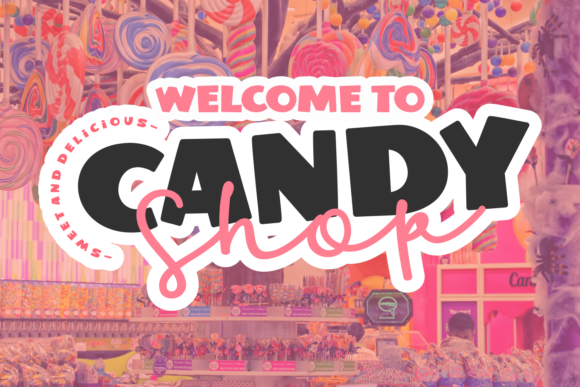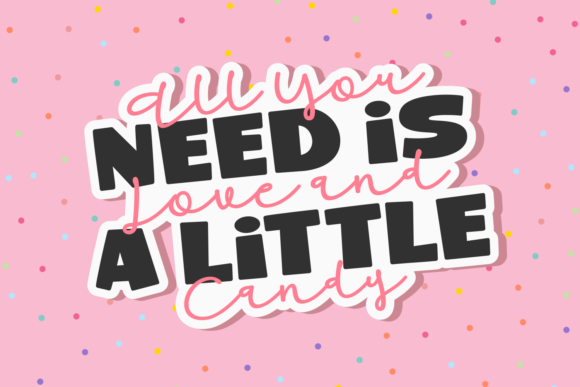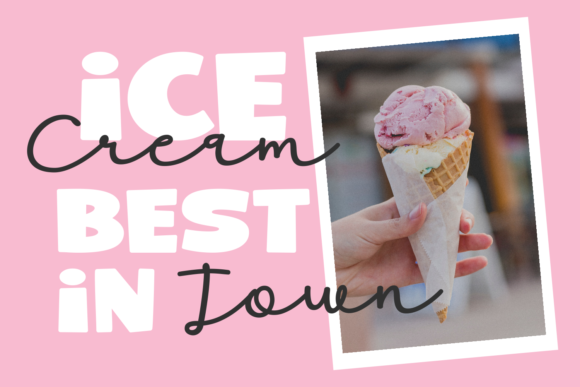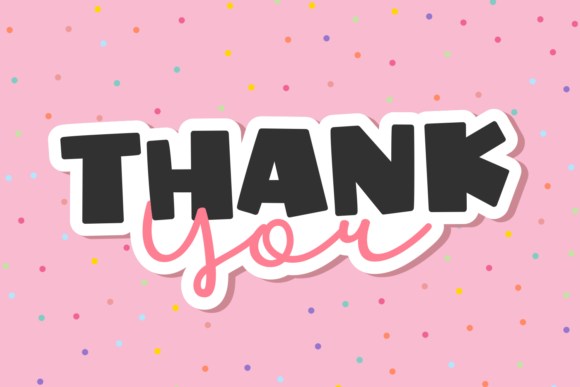
Cute Candy Font: The Sweetest Addition to Your Design Collection
Are you tired of using the same old fonts in your designs? Look no further than the Cute Candy Font, a lovely duo font that is sure to elevate your creative projects to the next level. This versatile font combination includes a sans serif and script font, making it perfect for a wide range of designs, from modern and sleek to playful and whimsical.
The Cute Candy Font Duo: A Match Made in Heaven
The Cute Candy Font is a duo font, consisting of two complementary fonts that work together in perfect harmony. The sans serif font is clean and modern, with a fresh and youthful feel, while the script font adds a touch of elegance and sophistication. Together, they create a unique and eye-catching combination that is sure to make your designs stand out.
One of the best things about the Cute Candy Font is its incredible versatility. Whether you’re designing a logo, creating a social media graphic, or crafting a handmade project, this font duo is sure to fit the bill. Here are just a few ideas to get you started:
- Create a modern and sleek brand identity with the sans serif font, perfect for businesses and entrepreneurs.
- Add a touch of whimsy and playfulness to your designs with the script font, ideal for crafts, DIY projects, and kids’ activities.
- Use the Cute Candy Font duo to create stunning invitations, party decorations, and other celebration materials.
- Pair the font with bright colors and fun graphics to create eye-catching posters, flyers, and brochures.
Bring Your Creative Ideas to Life
Are you looking for a way to add a little extra magic to your designs? The Cute Candy Font is the perfect solution. With its unique and playful combination of sans serif and script fonts, this duo is sure to bring your creative ideas to life. Whether you’re a designer, crafter, or DIY enthusiast, this font is sure to inspire you to create something truly special.
Why Designers and Crafters Love the Cute Candy Font
So, what makes the Cute Candy Font so special? Here are just a few reasons why designers and crafters love this font duo:
- Versatility: The Cute Candy Font duo can be used for a wide range of designs, from modern and sleek to playful and whimsical.
- Unique and Eye-Catching: The combination of sans serif and script fonts creates a unique and eye-catching look that is sure to make your designs stand out.
- Easily Readable: The sans serif font is clean and easy to read, making it perfect for body text and other written content.
- Customizable: The Cute Candy Font duo can be easily customized to fit your design needs, with adjustable spacing, size, and color.
Get Ready to Fall in Love with the Cute Candy Font
If you’re looking for a font duo that is sure to capture your heart, look no further than the Cute Candy Font. With its playful and whimsical combination of sans serif and script fonts, this duo is sure to become a favorite in your design collection. So why wait? Add the Cute Candy Font to your collection today and start creating stunning designs that are sure to impress!
| Font Name | Cute Candy Font |
| Author | Dani (7NTypes) |
In conclusion, the Cute Candy Font is a must-have for designers and crafters looking to add a little extra magic to their designs. With its versatile and unique combination of sans serif and script fonts, this duo is sure to elevate your creative projects to the next level. Whether you’re designing a logo, creating a social media graphic, or crafting a handmade project, the Cute Candy Font is the perfect choice. So why wait? Get your hands on this amazing font duo today and start creating stunning designs that are sure to impress!